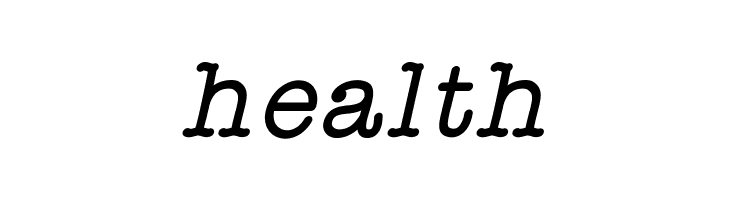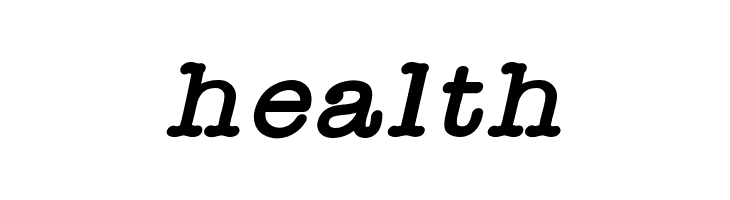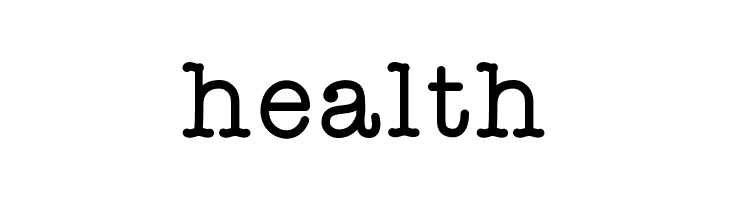
StaffMeetingPlain Font
A classic typewriter-style monospaced font with a vintage, mechanical look.
StaffMeetingPlainBold Font
A bold slab serif font with strong, block-like serifs and consistent stroke width.
StaffMeetingPlainItalic Font
A classic serif italic font with moderate contrast and elegant style.
StaffMeetingPlainBoldItalic Font
A bold, italic serif font with a classic and elegant style.